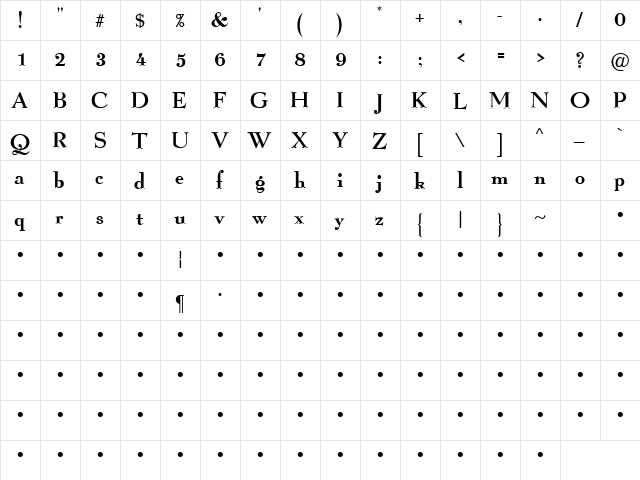
QTGraphLite Regular
Design Context for QTGraphLite Typeface
QTGraphLite offers clean, dependable letterforms without strong stylistic allegiance, making it a practical choice for designers who need flexibility.